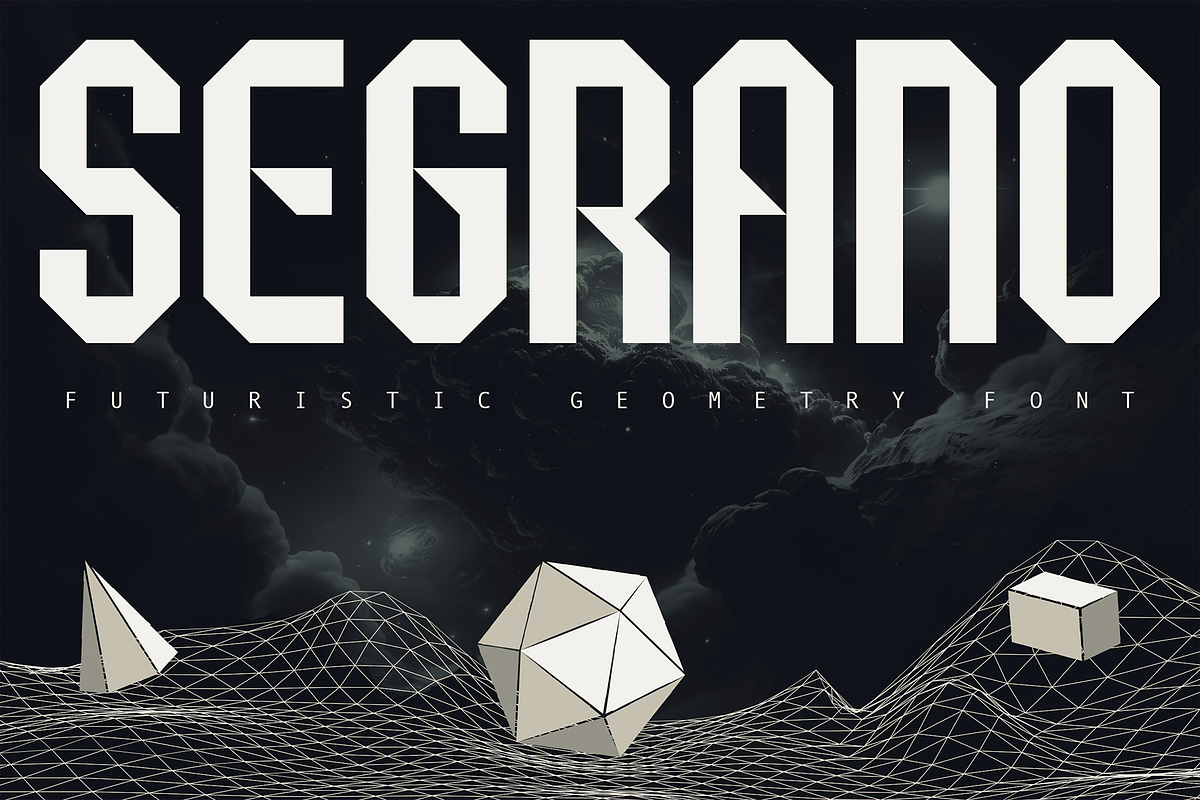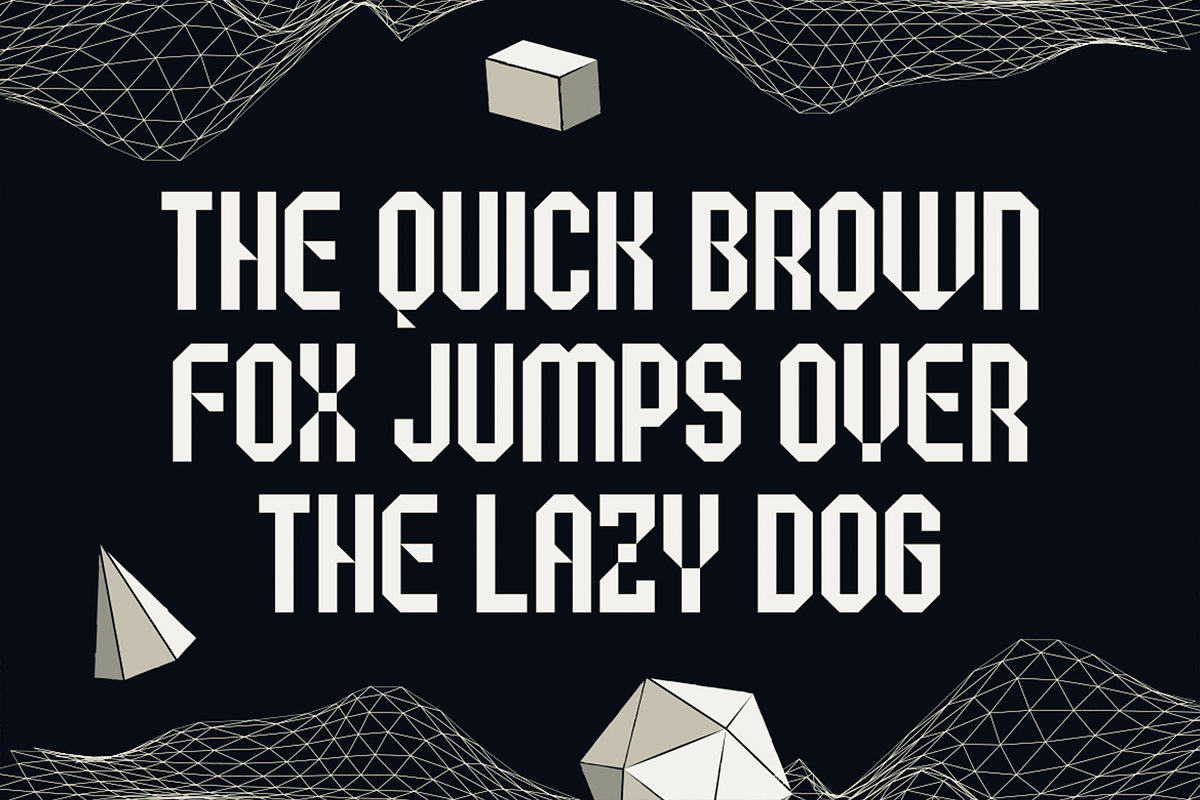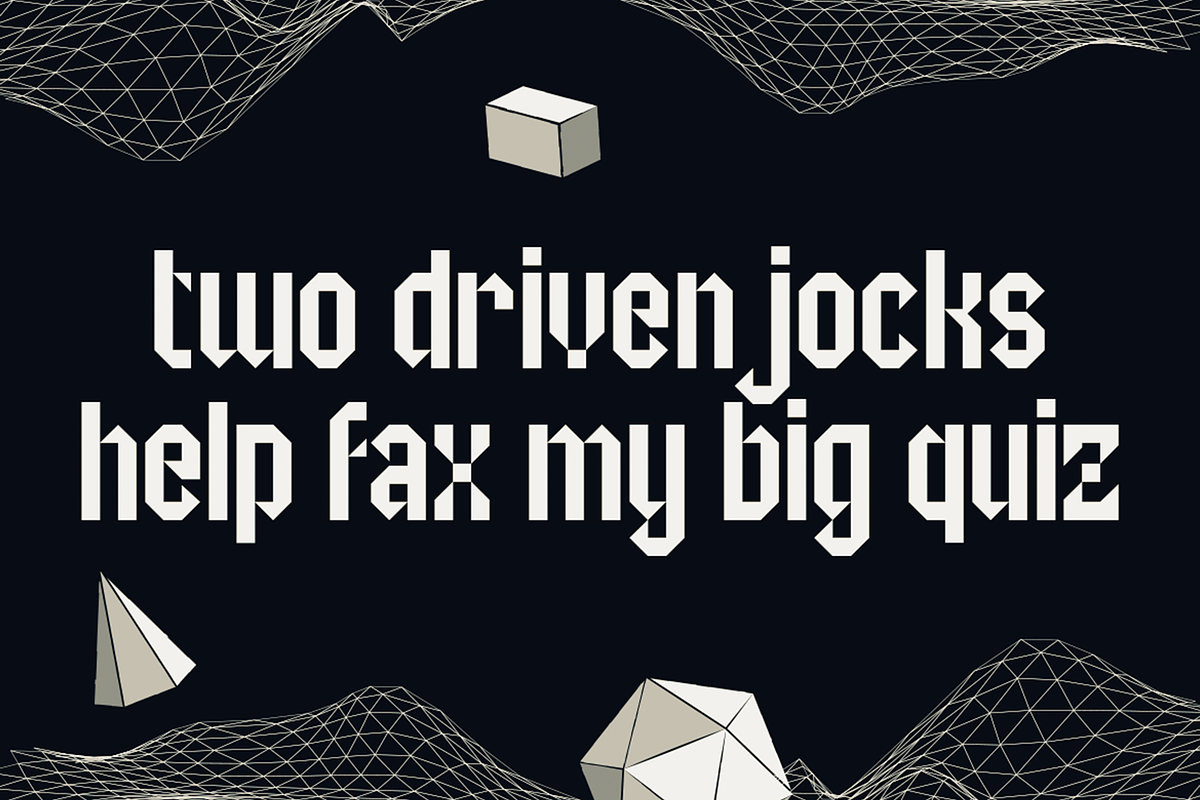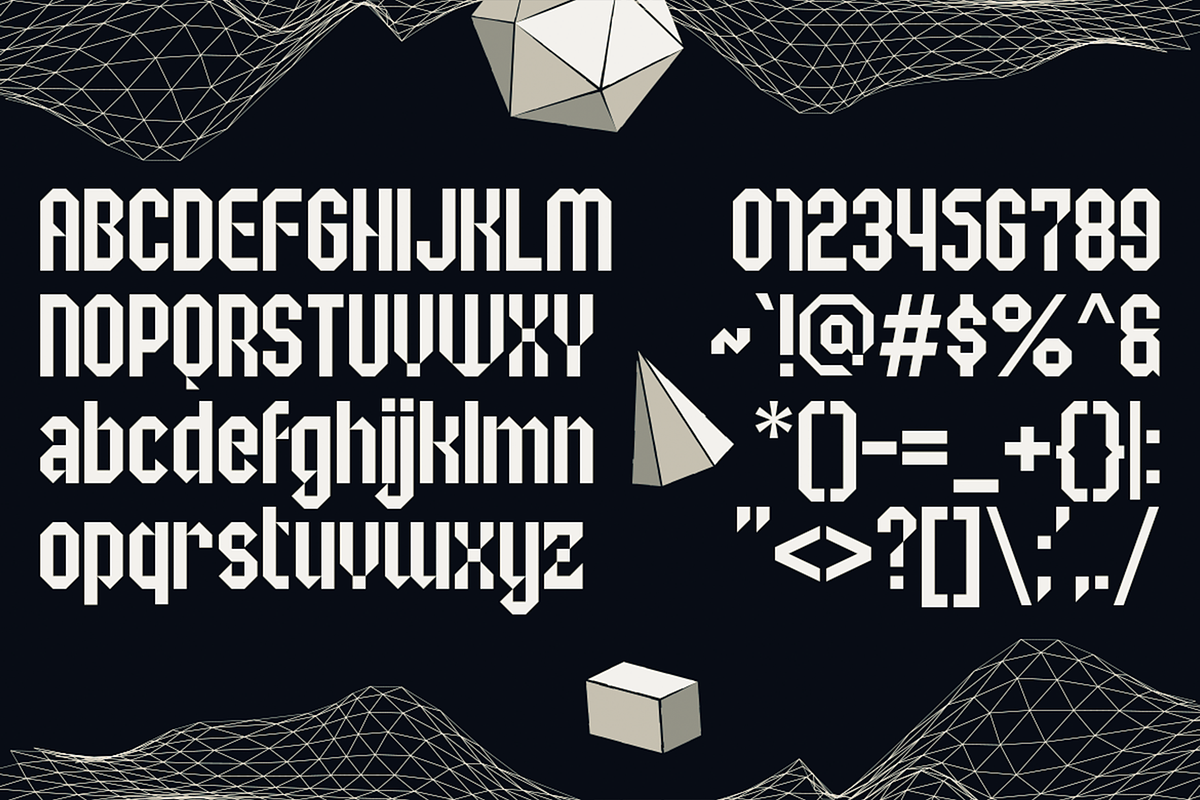
Segrano - Futuristic Geometric Fonts
Unleash your imagination with geometric-based shapes and futuristic vibes offered by Segrano. this font empowers you to explore endless possibilities and express your creativity in ways that push the boundaries of conventional design.
With Segrano font, your designs will effortlessly embody the essence of tomorrow. Whether you’re working on sci-fi book covers, space-themed websites, futuristic posters, or high-tech branding, this font will infuse your creations with a sense of awe-inspiring innovation and sleek modernity.